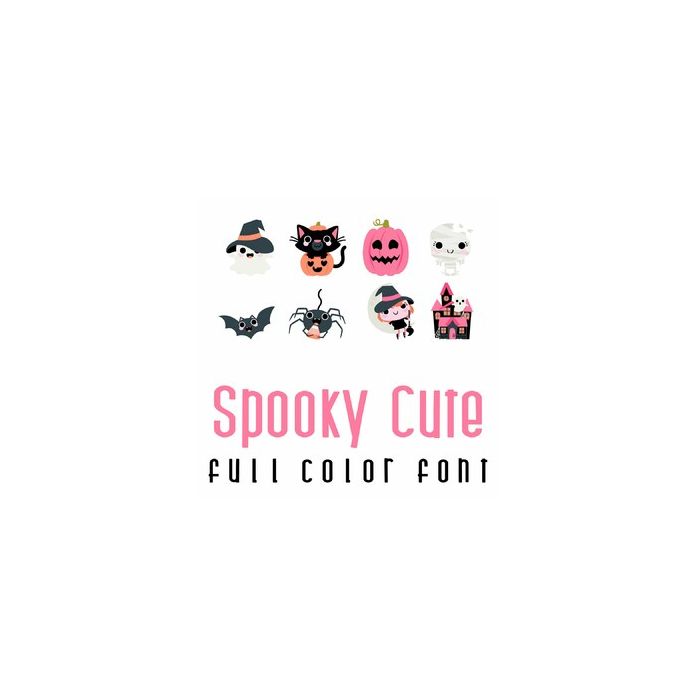
This adorable full color doodlebat font features 26 cute little monsters and Halloween images. Perfect for cards, crafts, gifts, decor, scrap book pages, planner stickers and more!